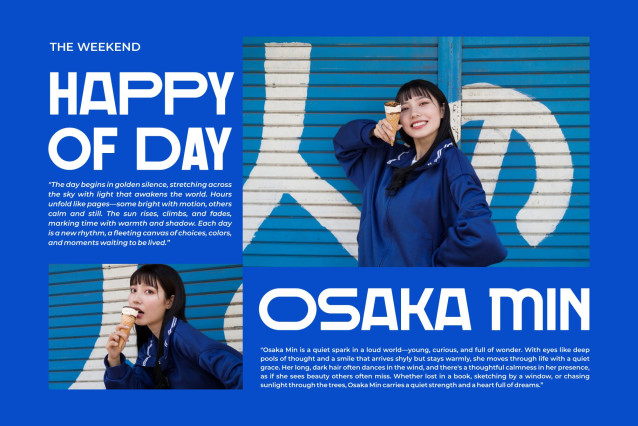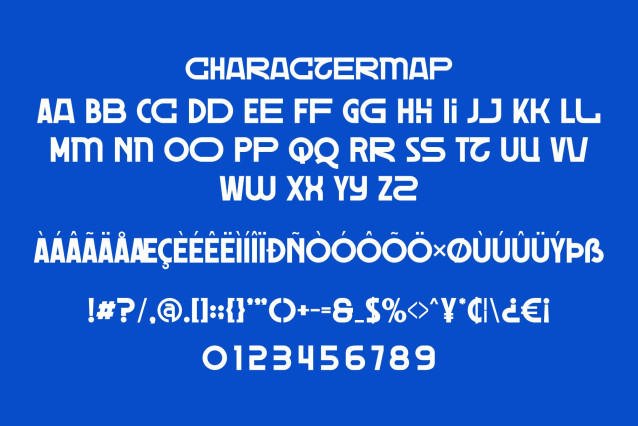
Solena Font
Solena Font is a modern sans serif font, trendy, bouncy and cute display font. It has a unique character with wood theme. It is perfect to be combined with invitation card designs, company logos, movie titles, movie names, business cards, book titles, brand names and various other designs.